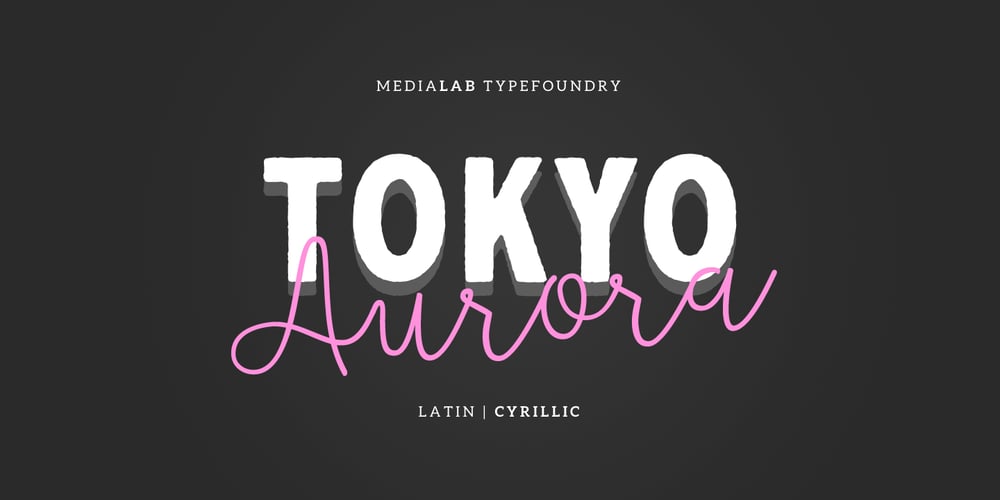
ML Tokyo Aurora Font Family was designed by Dmitrii Chirkov and published by Supfonts. ML Tokyo Aurora contains 2 styles and family package options. Hi ! I just now launch my new font Family called “Tokyo Aurora”. The Tokyo Aurora font is a simple font, comes with alternate symbols and some ligatures. I wanted this font looks elegant, readable, stylish, and catchy. You can use this font for watermark on photography, signature or signature logo design, quotes, album cover, business card, and many other design project.